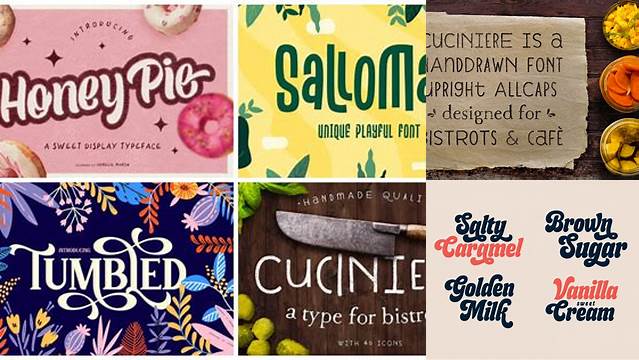
Free Food Fonts: Delicious Typography For Culinary Designs
Hey there, foodies and design enthusiasts! Are you looking for the perfect font to spice up your culinary projects? Look no further! In this article, we're diving into the world of free food fonts, exploring how they can add a dash of flavor to your designs and where to find the most mouthwatering options. Whether you're crafting a menu, designing a food blog, or creating eye-catching marketing materials for your restaurant, the right font can make all the difference. So, let's get started and discover how to use these tasty typefaces to create visually appealing and engaging content.
What Are Food Fonts and Why Do They Matter?
Food fonts are more than just pretty letters; they're a crucial ingredient in the recipe for successful design. These fonts are specifically designed to evoke the essence of culinary delights, capturing the textures, tastes, and overall ambiance of food. Imagine a rustic, hand-drawn font on a bakery's menu, instantly conveying the warmth and homemade goodness of their treats. Or picture a sleek, modern sans-serif font on a fine dining establishment's website, hinting at the sophisticated and elegant experience that awaits. The fonts you choose can significantly influence how people perceive your brand and the food you offer.
The power of food fonts lies in their ability to communicate emotions and associations. Certain fonts can make your audience feel hungry, nostalgic, or even excited about trying new dishes. For instance, a playful, bubbly font might be ideal for a children's menu, while a bold, impactful font could be perfect for advertising a juicy burger. Think of fonts as the secret seasoning that adds depth and flavor to your visual presentation. Choosing the right font is essential because it directly affects how your message is received and remembered.
Moreover, in today's visually driven world, the first impression is often a visual one. Your font choice can be the deciding factor in whether someone stops to read your menu, clicks on your website, or shares your social media post. A well-chosen food font not only enhances readability but also creates a cohesive and appealing brand identity. It communicates your brand's personality and values, making it a vital part of your overall marketing strategy. So, when you're selecting fonts for your food-related projects, remember that you're not just picking letters; you're crafting an experience.
Key Characteristics of Effective Food Fonts
When selecting food fonts, several characteristics can significantly impact the effectiveness of your design. It's not just about finding a font that looks good; it's about finding one that resonates with your brand and the message you want to convey. Let's explore some key traits that make a font truly stand out in the culinary world.
Readability
First and foremost, readability is paramount. No matter how aesthetically pleasing a font is, if it's difficult to read, it defeats its purpose. Imagine a beautifully designed menu with intricate calligraphy that no one can decipher – it's not going to help your customers order. Ensure that the font you choose is clear and legible, even at smaller sizes. This is especially important for menus, websites, and packaging labels, where information needs to be quickly and easily accessible. Consider factors like letter spacing, font weight, and contrast against the background to ensure optimal readability.
Personality
Next, think about the personality of the font. Does it align with your brand's identity? Is it playful, elegant, rustic, or modern? The font should reflect the overall tone and style of your food business. For example, a handwritten-style font might be perfect for a cozy café, while a sleek, sans-serif font could be more suitable for a contemporary restaurant. The font's personality should complement your brand's story, creating a cohesive and memorable impression on your audience. It should evoke the emotions and feelings you want your customers to associate with your brand.
Versatility
Versatility is another crucial factor. A good food font should work well in various applications, from print to digital. It should be legible on both a large poster and a small business card. It should also be versatile enough to pair with other fonts effectively. Consider using a font family that offers different weights and styles, giving you flexibility in your design. This allows you to maintain consistency across all your marketing materials while adding visual interest. A versatile font can be a valuable asset, saving you time and effort in the long run.
Visual Appeal
Finally, visual appeal is undeniable. The font should be attractive and engaging, drawing the viewer's eye and holding their attention. It should have a unique quality that makes it stand out, but not at the expense of readability. Think about the overall aesthetic of the font – does it have a handmade feel, a classic elegance, or a modern edge? The visual appeal of the font can significantly impact the perception of your food and brand, making it an essential consideration in your selection process.
Top Sources for Free Food Fonts
Now that we know what to look for in food fonts, let's explore some top sources where you can find these culinary treasures for free. The internet is a vast resource, but navigating it can be overwhelming. To help you out, we've compiled a list of reliable and reputable platforms offering a wide range of free food-related fonts. Get ready to discover some delicious designs!
Conclusion: Spice Up Your Designs with Free Food Fonts
So, there you have it, guys! A comprehensive guide to the wonderful world of free food fonts. From understanding the key characteristics of effective fonts to exploring top sources and delicious pairings, you're now equipped to spice up your designs and make your culinary projects truly shine. Remember, the right font can be a powerful ingredient in your recipe for success, adding flavor and personality to your brand. So, go ahead, experiment with different typefaces, and discover the perfect fonts to tell your food story. Happy designing, and may your culinary creations always look as delicious as they taste!